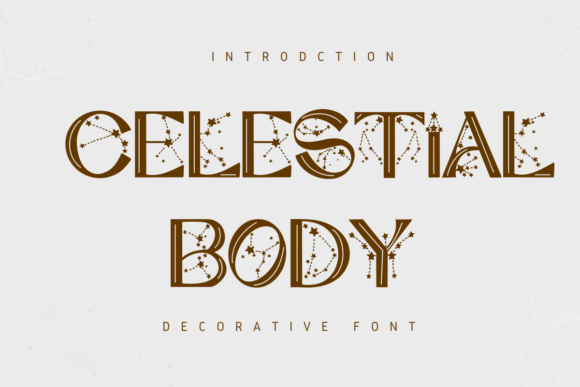
The Magic of Celestial Body Font: Unlocking Endless Creativity
Do you remember the feeling of pouring your heart and soul into a creative project, only to be stopped in your tracks by the perfect font? For designers and artists, the right typography can make all the difference between a decent design and a truly show-stopping one. I still get that thrill every time I stumble upon a font that speaks to me, and Celestial Body Font is one of those rare gems that never fails to spark my imagination.
Designed to add a touch of whimsy and elegance to any project, Celestial Body Font is a decorative font that’s perfect for taking notes, writing a diary, or making greeting cards. But its uses don’t stop there – this versatile font can be used for a wide range of designs, from banners and social media posts to mugs and shirts.
Celestial Body Font Key Features
- Unique Character Set: Celestial Body Font features a unique set of characters, including astronomical symbols, celestial bodies, and other related icons, adding an extra layer of depth and meaning to any text.
- Customizable Opentype Features: The font includes customizable OpenType features, such as ligatures, swashes, and stylistic sets, allowing designers to create a wide range of custom styles and effects.
Celestial Body Font Review
Overall, I found the “Celestial Body Font” to be a visually appealing and unique addition to any design project. Here are some of its strengths: ✨
- It has a whimsical, ethereal quality that can add a touch of magic to your designs.
- The font’s irregularities and quirks make it feel more human and less perfect than other fonts.
- It’s highly versatile and can be used for a wide range of applications, from branding and advertising to editorial and digital content.
However, I did encounter some limitations with this font: ⚠️
- The font’s irregularities can sometimes make it difficult to read, especially in large blocks of text.
- The font’s unique style may not be to everyone’s taste, and some users may find it distracting or overwhelming.
Overall, I think the “Celestial Body Font” is a great choice for designers who want to add a touch of whimsy and personality to their projects. While it may have some limitations, its unique style and versatility make it a valuable addition to any design arsenal.
The Celestial Body Font is ideal for:
- Galaxy and space-themed designs.
- Science fiction and fantasy projects.
- Cosmic and celestial-inspired artwork.
- Professional presentations and documents requiring a touch of elegance.